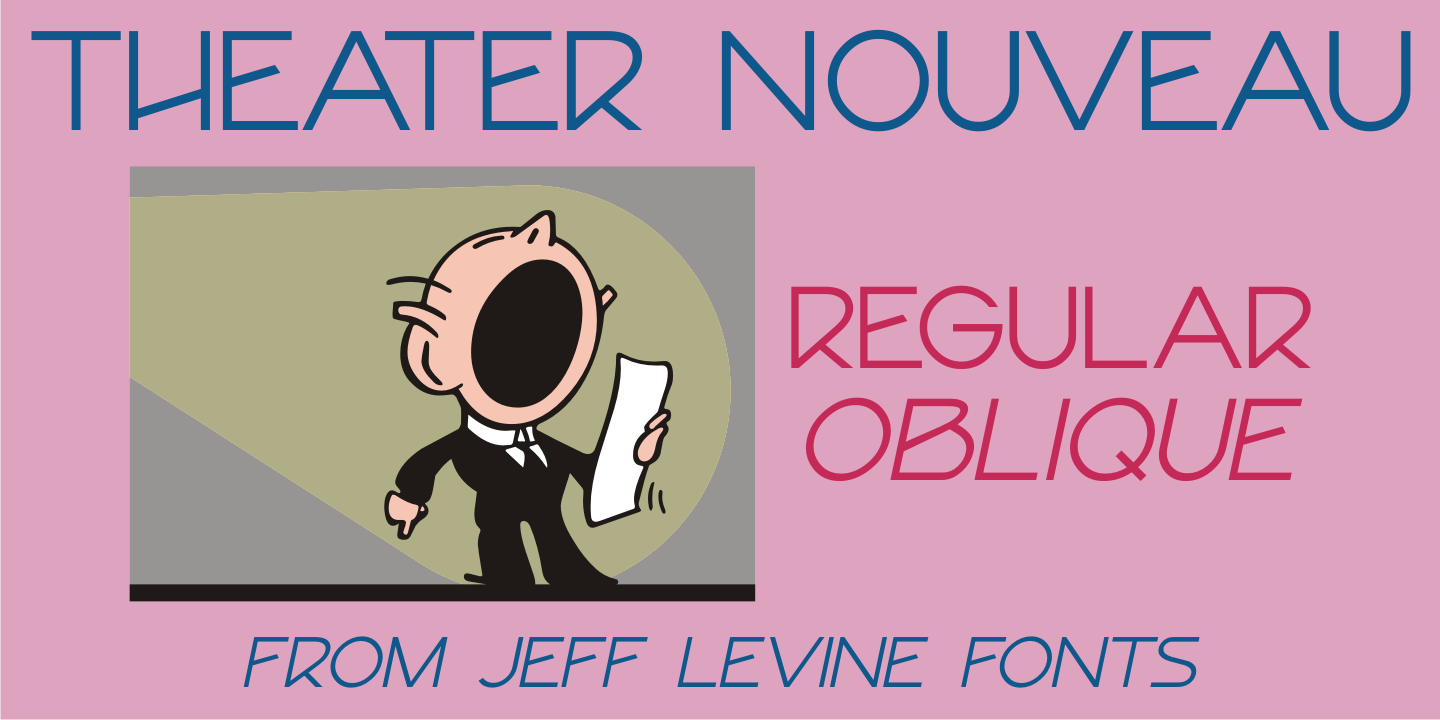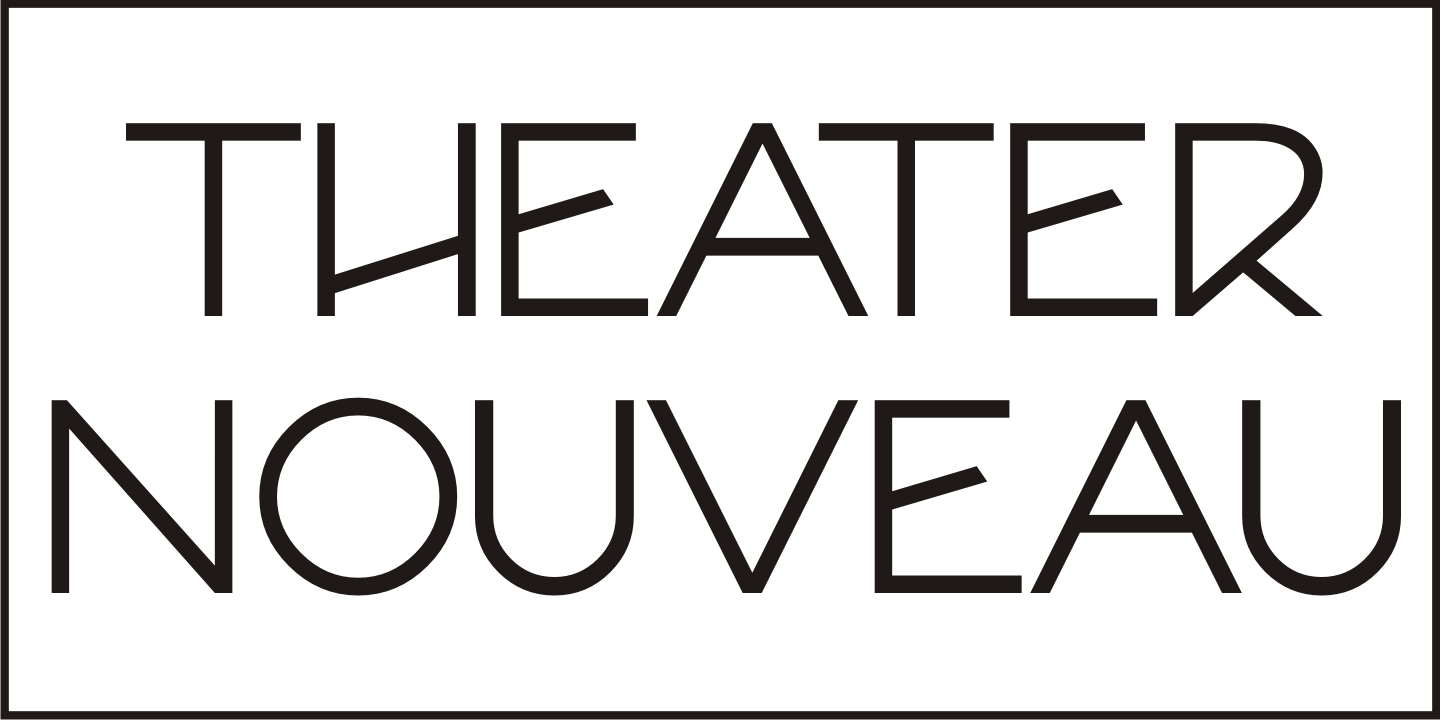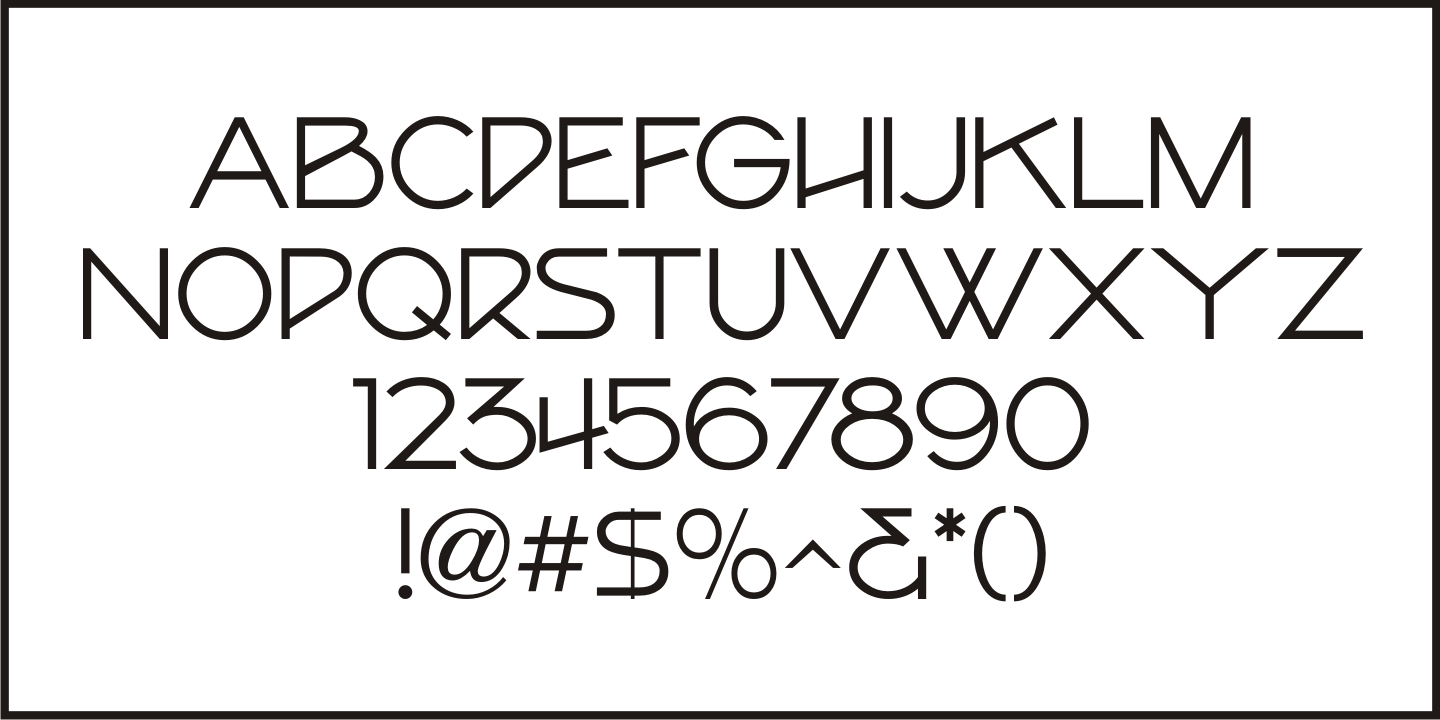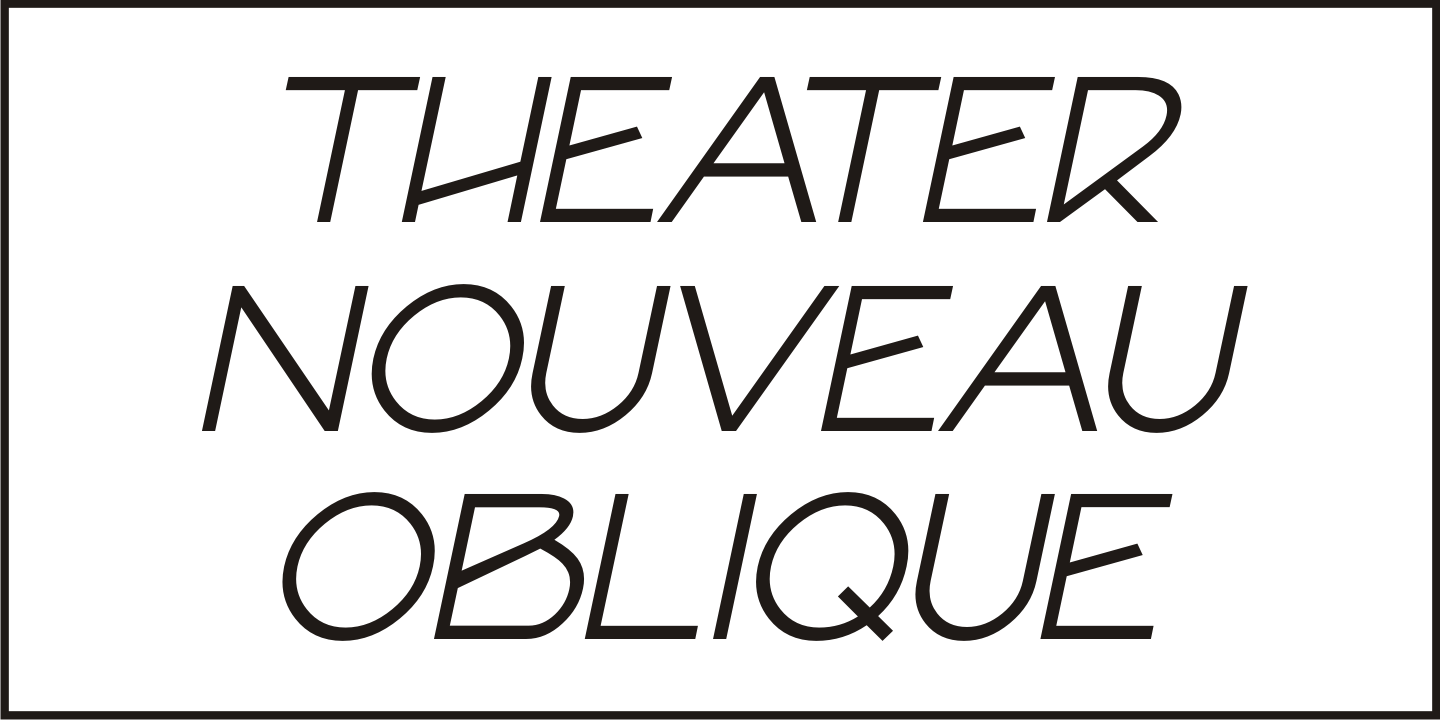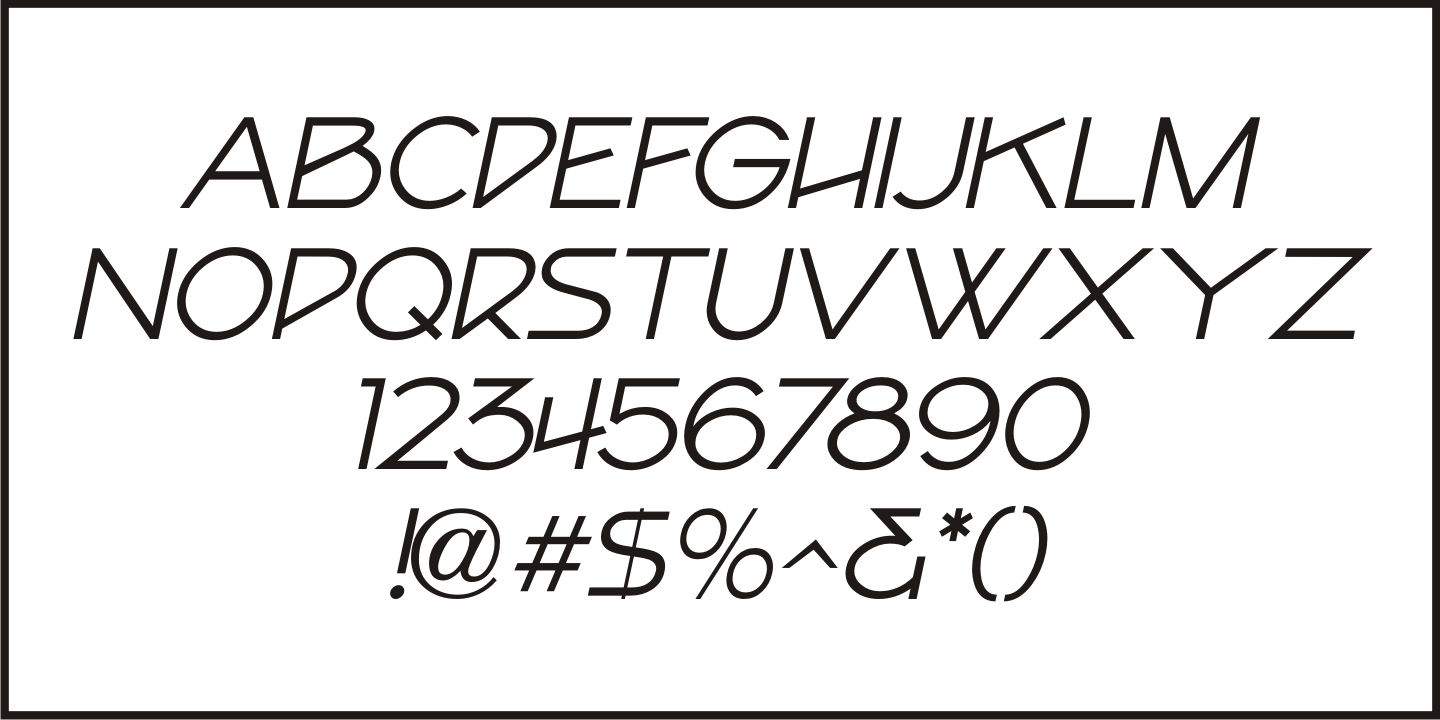
Theater Nouveau
Sheet music from the 1911 stage production of the comic opera 'The Enchantress' featured the hand lettered names of both the star and composer in a monoline Art Nouveau style.
This sans serif type design is now available as Theater Nouveau JNL in both regular and oblique versions.